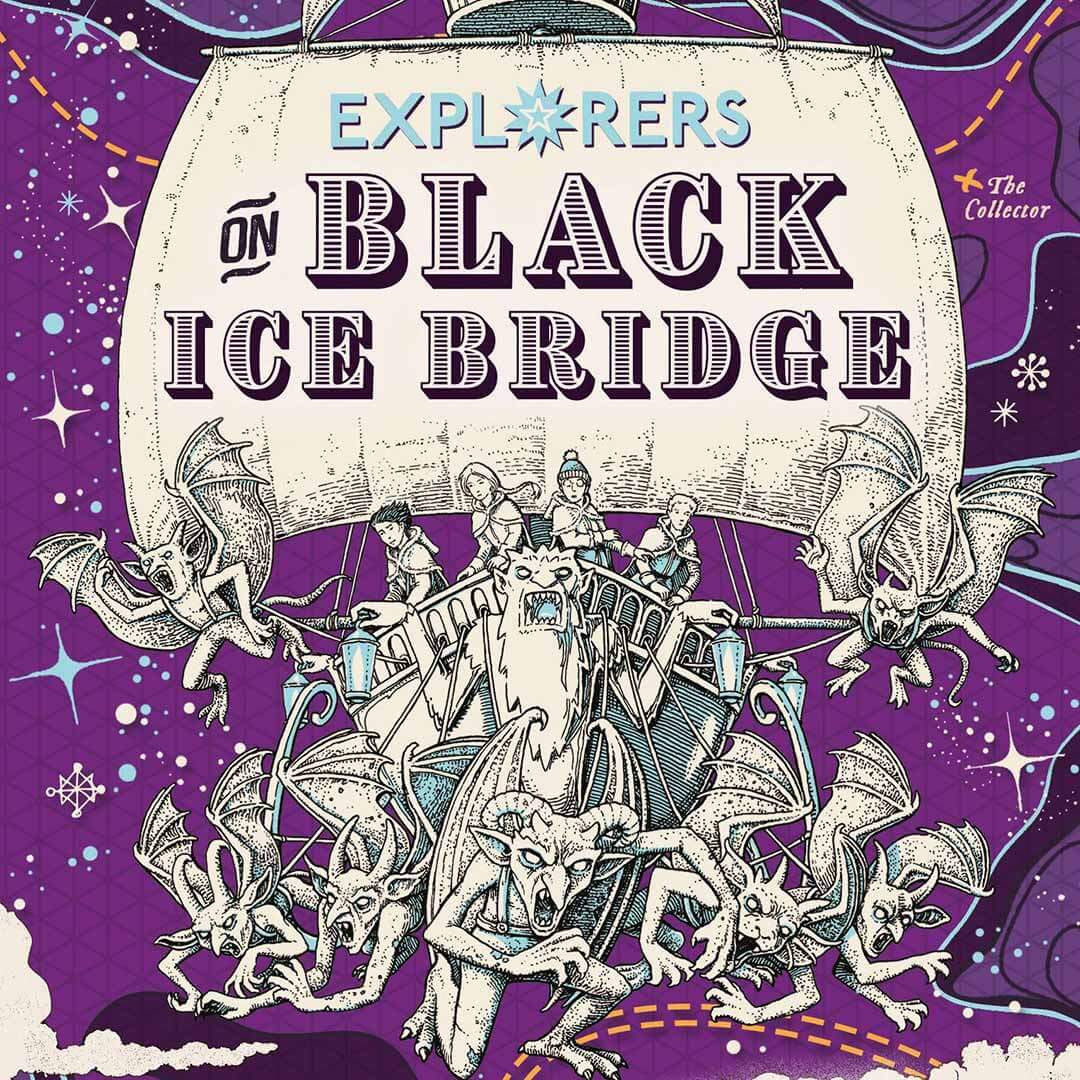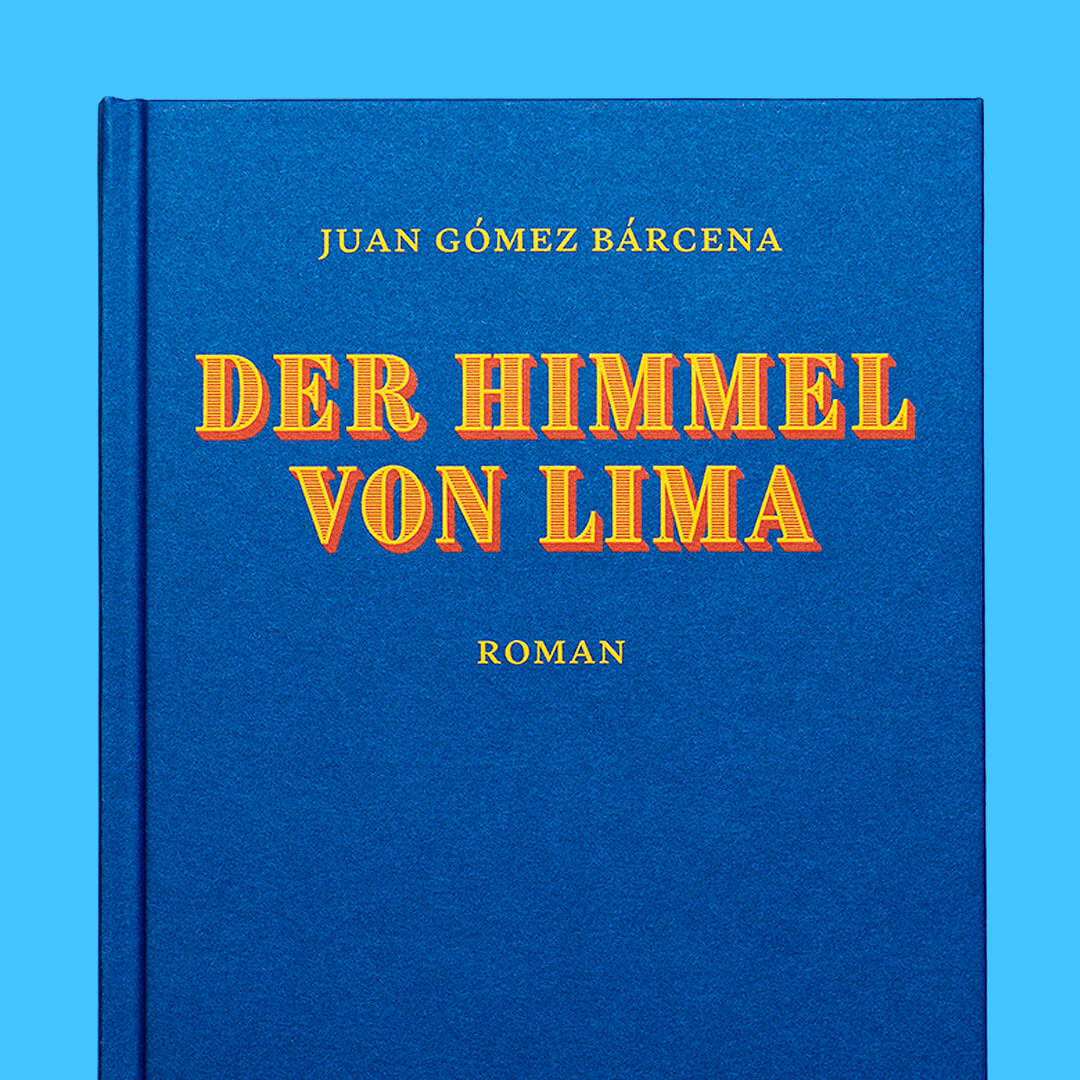
Brim Narrow
Superiors [1,2,3]
Ordinals
Brim Narrow draws inspiration from antique wood type and 19th-century chromatic type, offering a warm, tactile feel. Its styles are designed to stack seamlessly, creating bold, decorative combinations. Each layer can be assigned its own colour, producing vibrant, eye-catching headlines, posters and logotypes.
Originally crafted for a logotype, Brim Narrow was expanded into a versatile display typeface. Its innovative overlapping structure reimagines antique style for modern digital typography – it’s a lot of fun, so give it a try!